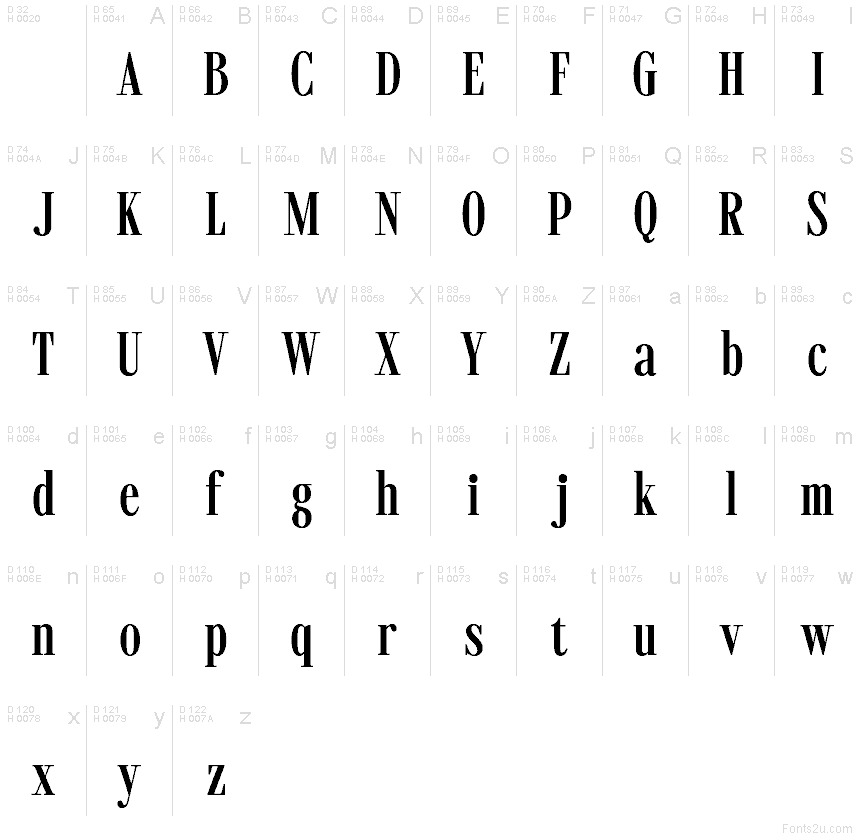
CS Martines Regular Demo
CS Martines font by Craft Supply Co. is an elegant condensed serif font with a sophisticated and authoritative presence. Traditional influences create its eye-catching visual appearance which will be immediately respected by any of your readers.
Use this free serif font to achieve beautiful results in book text, magazine covers, restaurant menus, university branding, certificates, business cards, luxe packaging designs, headlines or posters.